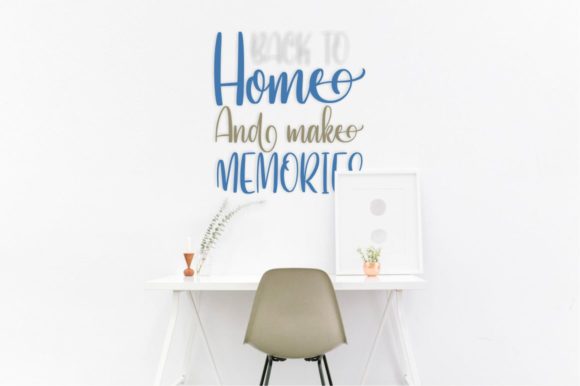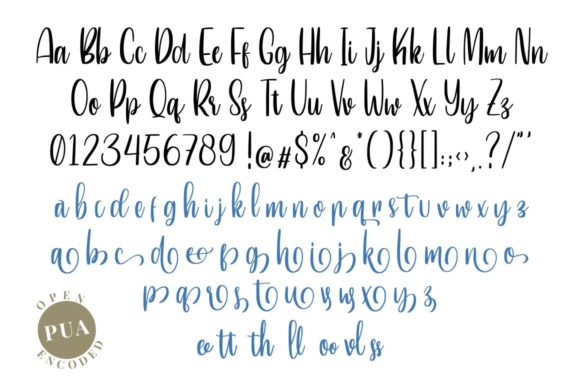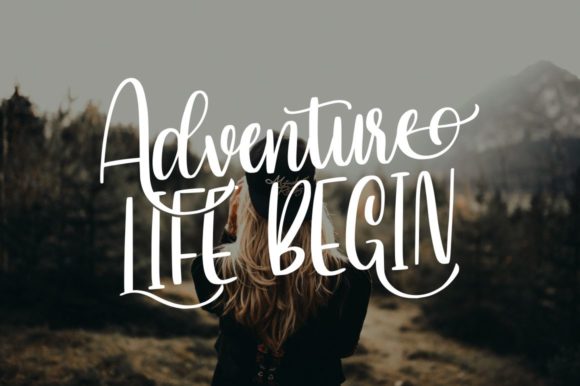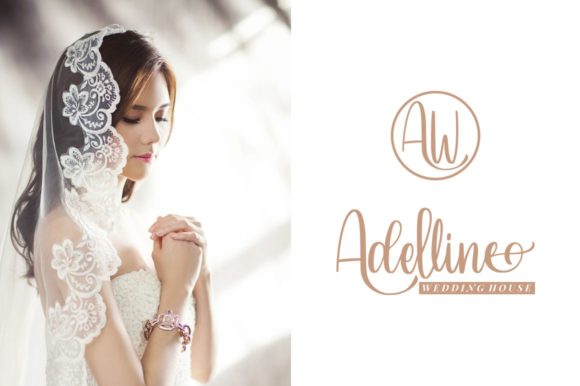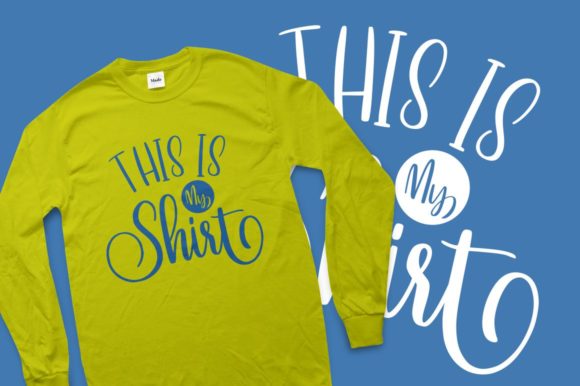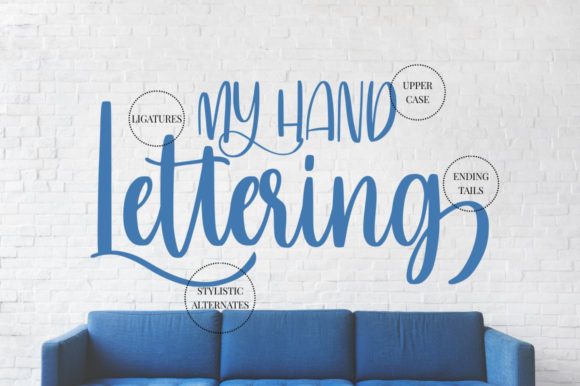
Betterlove Font: The Beautiful Script Font that Stoals Hearts
Are you a designer or crafter looking for a unique and charming font to add to your creative projects? Look no further than Betterlove Font, a stunning script font that is sure to capture your heart. With its beautiful swashes and elegant charm, Betterlove Font is the perfect addition to any design or craft project.
What is Betterlove Font?
Betterlove Font is a beautiful script font that features many alternate swashes in the start and ending characters. This unique feature allows designers and crafters to add a touch of elegance and sophistication to their projects. The font is perfect for a variety of creative projects, including wedding invitations, greeting cards, and other paper crafts.
The Unique Charm of Betterlove Font
So, what sets Betterlove Font apart from other script fonts on the market? The answer lies in its unique charm. The font features beautiful swashes that add a touch of whimsy and romance to any project. The swashes are carefully crafted to add a flowing, organic feel to the text, making it perfect for projects that require a personal touch.
Features of Betterlove Font
Betterlove Font comes with a range of features that make it a must-have for designers and crafters. Some of the key features include:
- Beautiful script font with many alternate swashes in start and ending characters
- Unique charm that adds a touch of elegance and sophistication to any project
- Perfect for wedding invitations, greeting cards, and other paper crafts
Why Designers and Crafters Love Betterlove Font
Designers and crafters love Betterlove Font for many reasons. Here are just a few:
- Unique and eye-catching: Betterlove Font is a standout font that is sure to grab attention. Its unique swashes and elegant charm make it perfect for designers and crafters who want to create something truly special.
- Versatile: Betterlove Font is versatile and can be used for a range of creative projects, from wedding invitations to greeting cards and other paper crafts.
How to Use Betterlove Font in Your Designs
Using Betterlove Font in your designs is easy. Here are a few tips to get you started:
- Pair it with other fonts: Betterlove Font pairs well with other fonts, including serif and sans serif fonts. Experiment with different font combinations to find the perfect look for your project.
- Use it for headings and titles: Betterlove Font is perfect for headings and titles, where its unique swashes and elegant charm can really shine.
- Experiment with swashes: Don’t be afraid to experiment with the swashes in Betterlove Font. Try different combinations to find the perfect look for your project.
Betterlove Font is a beautiful script font that is sure to capture your heart. With its unique swashes and elegant charm, it’s the perfect addition to any design or craft project. Whether you’re a designer or crafter, Betterlove Font is a must-have font that is sure to inspire your creativity. So why wait? Fall in love with Betterlove Font today and take your designs to the next level.